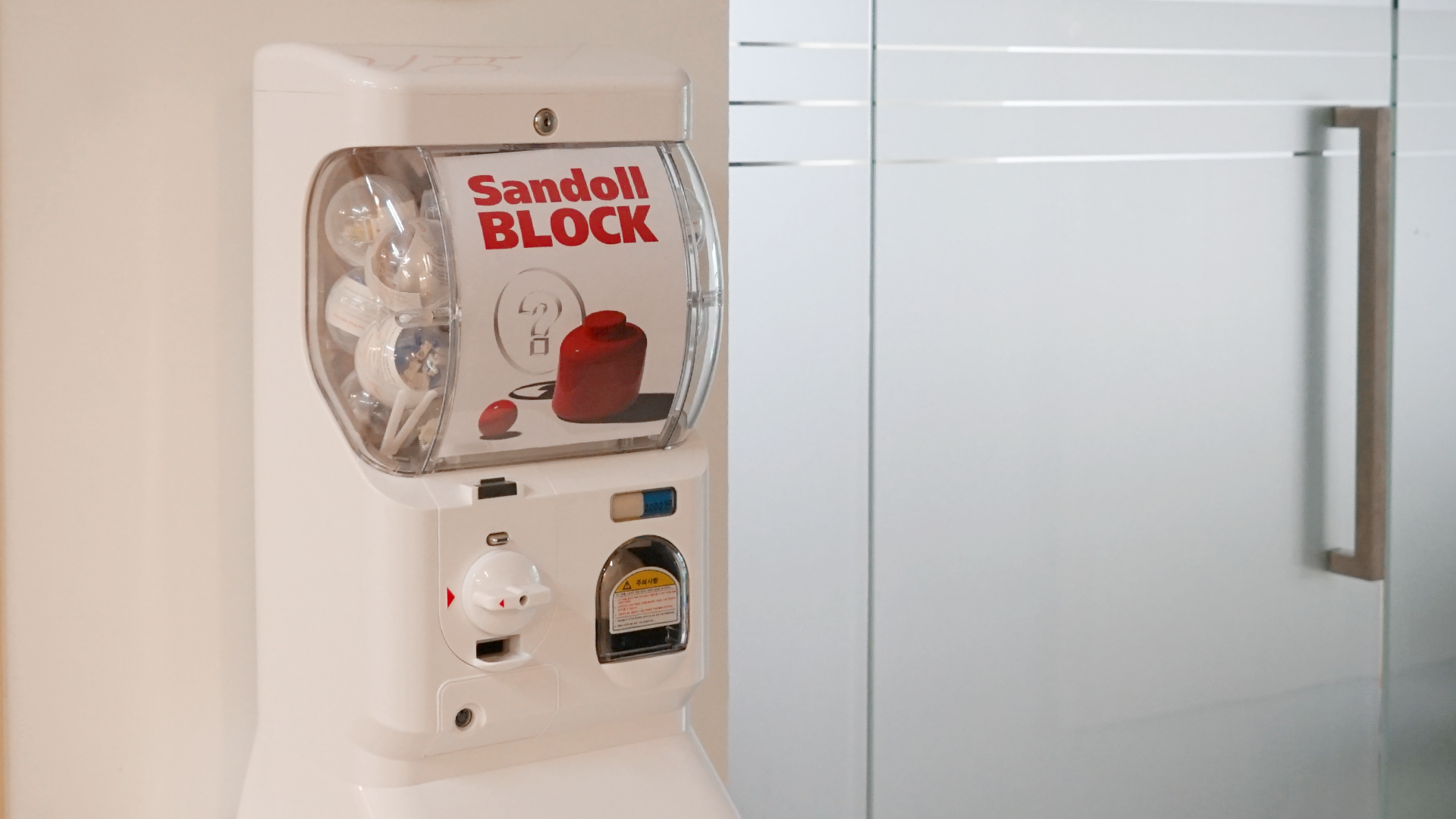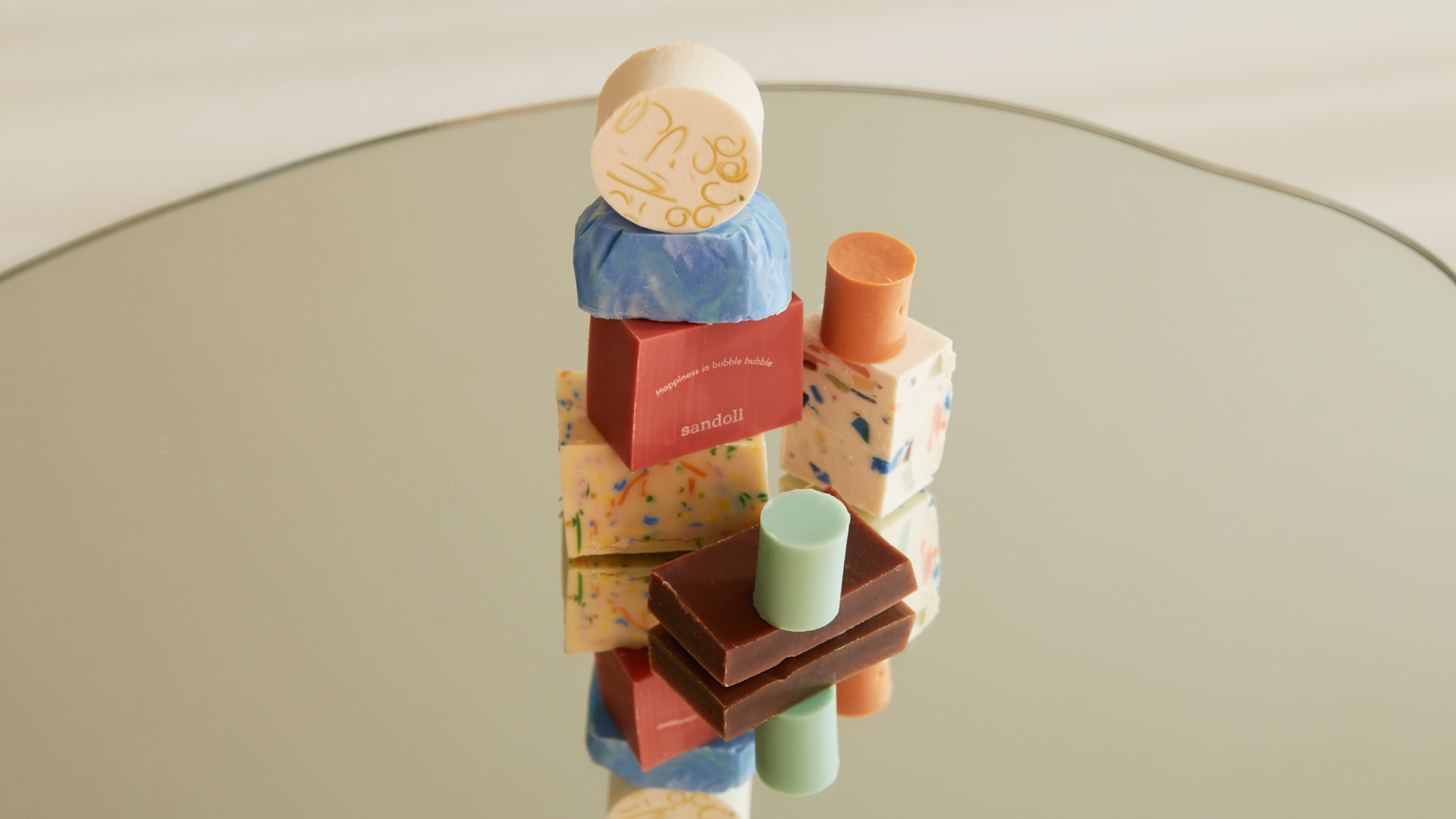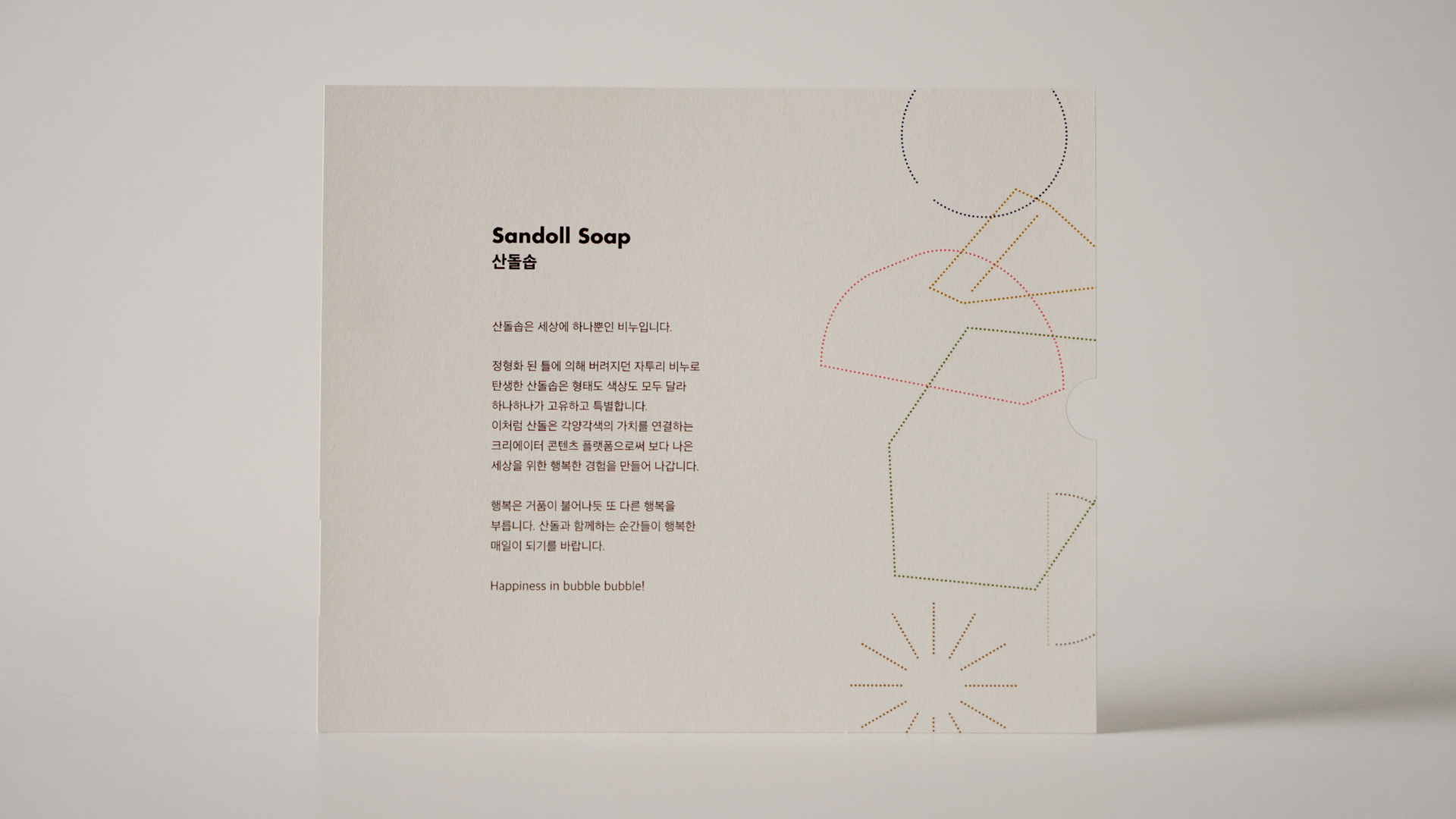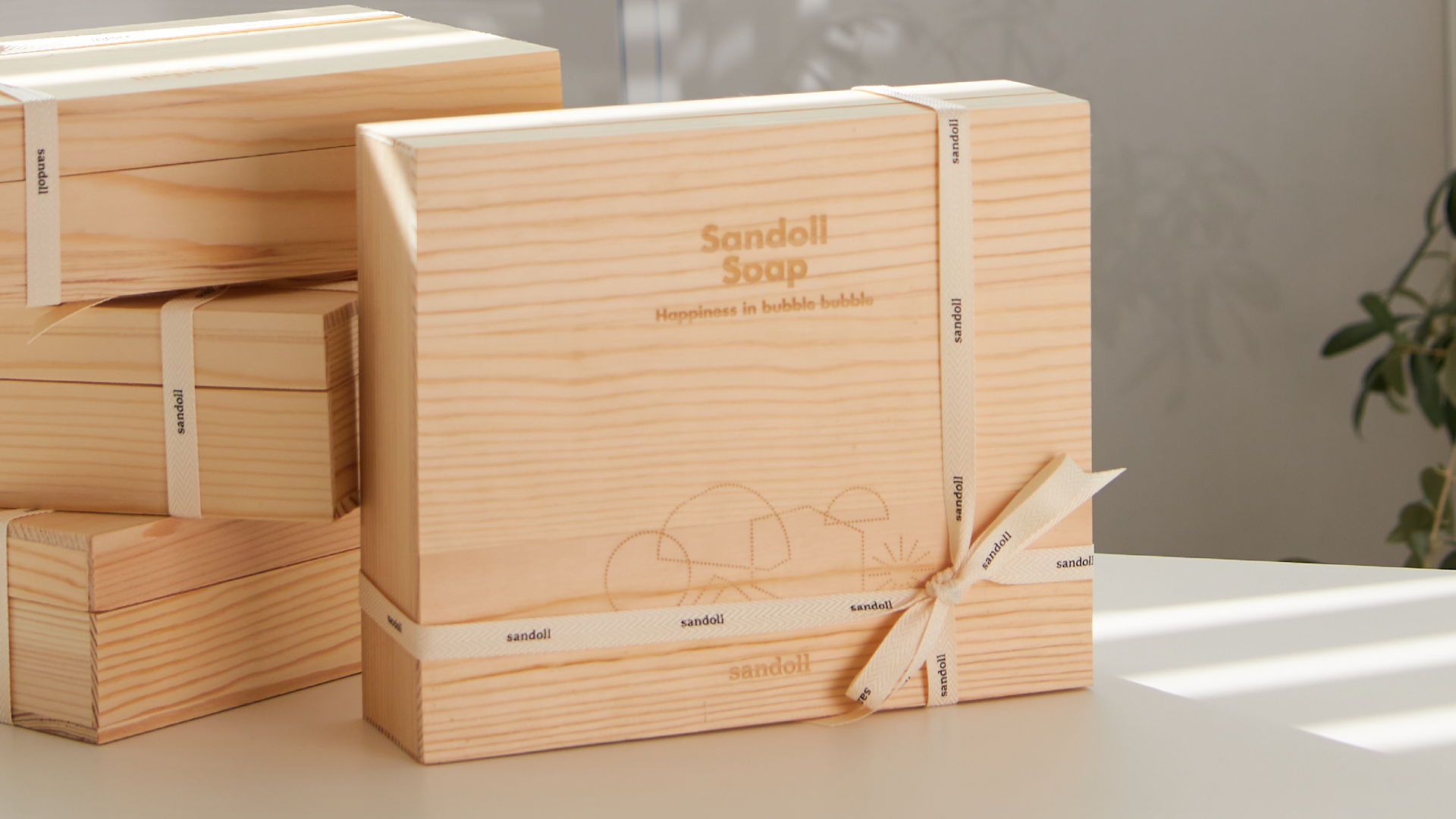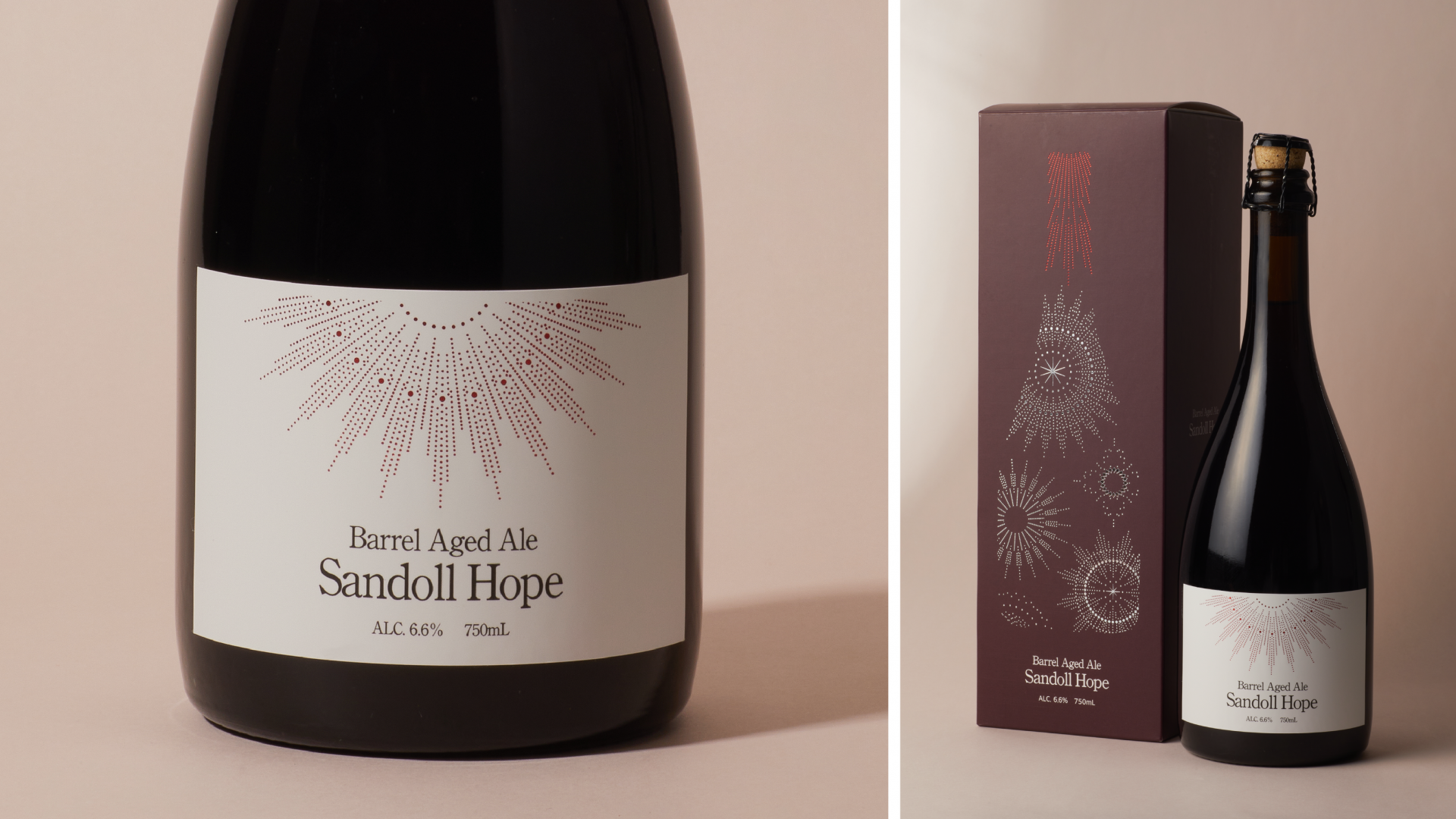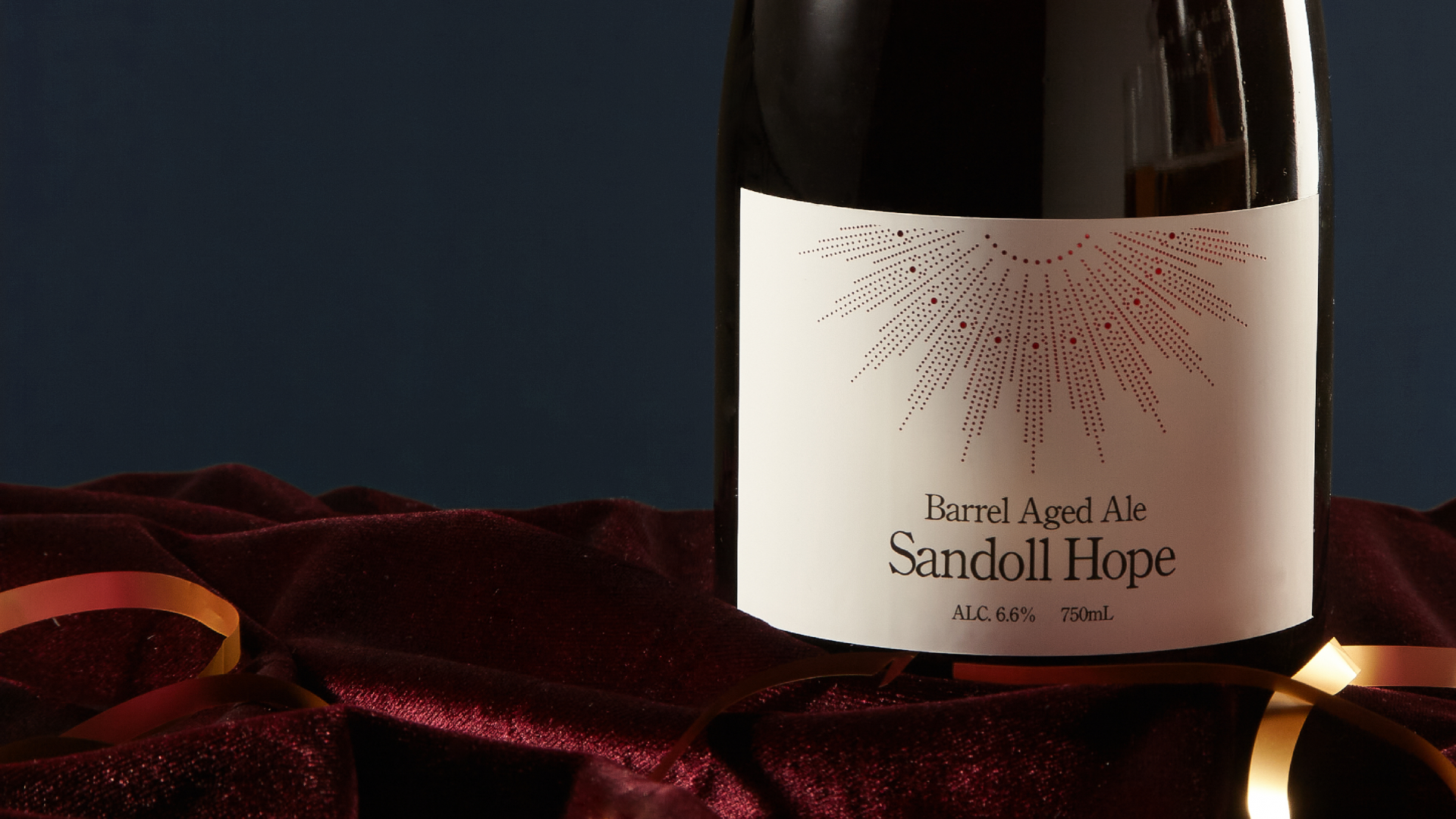
Sandoll produces a variety of brand merchandise every year. When people think of “Sandoll,” fonts are usually the first thing that come to mind. Perhaps because of this, many are curious about what Sandoll’s merchandise looks like. Today, we would like to carefully walk through the story of the brand merchandise that the BX Team has created over the years.
Q. Why does Sandoll create merchandise?
Yongho: Hello, I’m Yongho Lee, a BX planner. Sandoll creates merchandise to effectively communicate its brand identity and message. One of the strengths of merchandise is that it allows the identity embedded in a brand to be realized as physical objects. Within various points of contact with customers, the BX Team delivers a consistent brand experience while creating moments where that experience can continue to expand. Elements that represent a consistent experience include brand fonts, colors, and voice. These elements vary by brand, but we believe that few devices deliver an experience as dense and tangible as brand merchandise.
Yeoreum: Hello, I’m Yeoreum Kim, a designer on the same BX Team. In most cases, interactions between a brand and its customers are not situations where brand identity alone can take priority. More often, the product or service itself comes first. Brand merchandise, however, places a dense brand experience at the forefront in order to convey identity. That is why the BX Team cannot help but be deeply committed to merchandise.
Various ways to experience a brand
Yeoreum: As mentioned earlier, brand merchandise materializes brand identity. Experiencing a brand through tangible objects makes the impression clearer and more vivid. There is an old saying, “Hearing something a hundred times is not as good as seeing it once (百聞不如一見).” I think this saying aptly describes the appeal of brand merchandise.
In this context, much of the merchandise currently created by the BX Team is intended for BtoB purposes, as it allows Sandoll’s impression to be communicated clearly to business partners. Because the word “business” itself can feel rigid, brand merchandise serves as a device that helps conversations flow more smoothly, functioning as an icebreaker and enabling more natural dialogue.
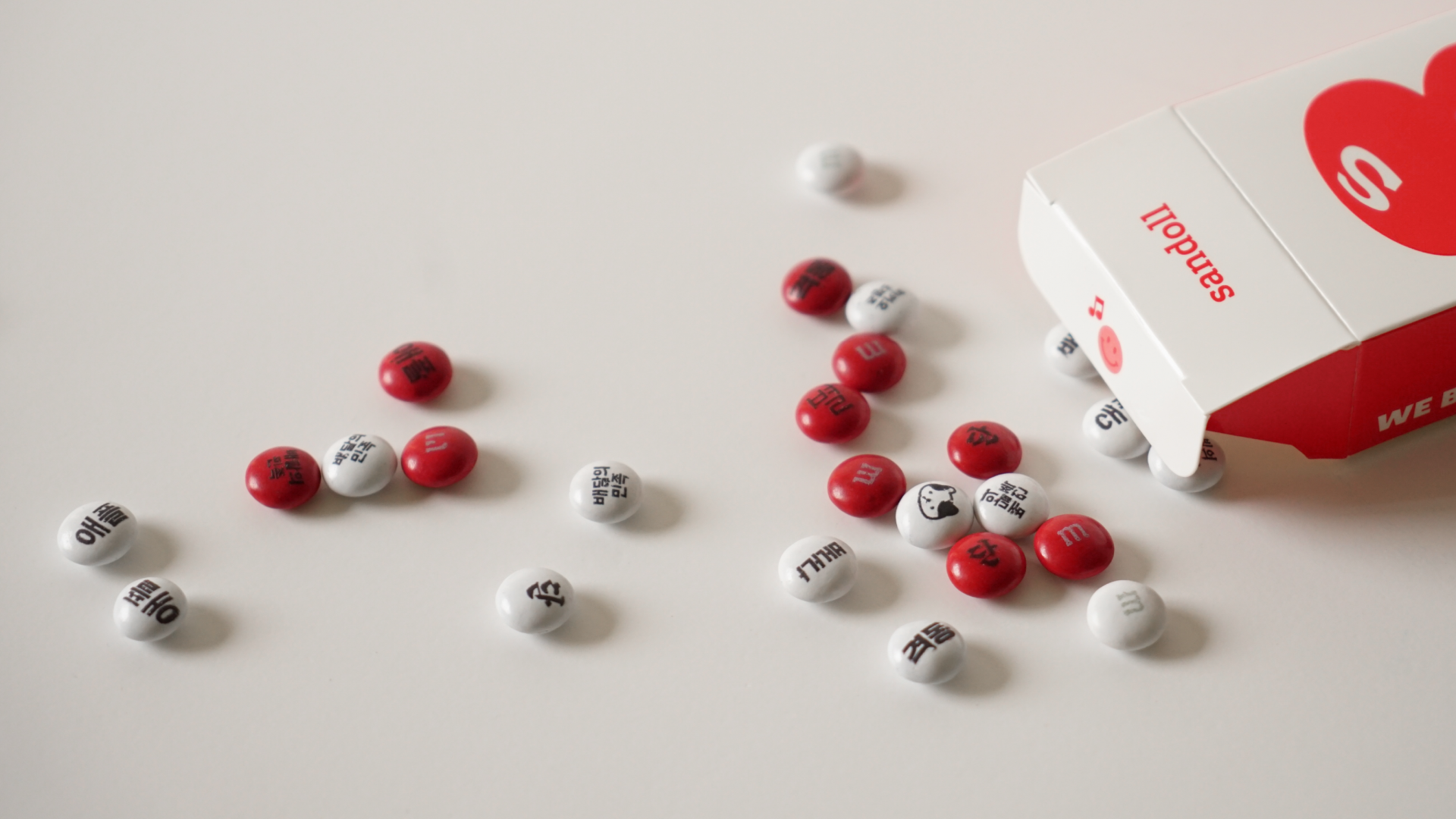
Sandoll SWEET is a piece of merchandise that presents Sandoll’s fonts in the form of chocolate. Created with the meaning of hospitality and affection,
it was designed to make an encounter with Sandoll a pleasant and sweet experience.
First impressions determine more than you might expect. With Sandoll’s sweetness captured in chocolate, try sharing it lightly with your partners.
It can help convey a positive first impression of Sandoll. Inside the chocolate, you will find fonts created by Sandoll hidden within.
Yongho: The identity and messages embedded in merchandise naturally lead people to recognize the direction of Sandoll as a company. I believe that as these devices accumulate, they eventually help people remember Sandoll in a way that differentiates it from other brands. They may also become the backdrop that brings Sandoll to mind at decisive moments.
The word gyeolsim (決心) means to firmly set one’s mind. People in the past viewed the mind as something that easily drifts, which is why they expressed making a decision as “hardening the mind.” I believe this is where the role of the BX Team lies: persuading people and helping them form a firm commitment (決心) toward our brand.
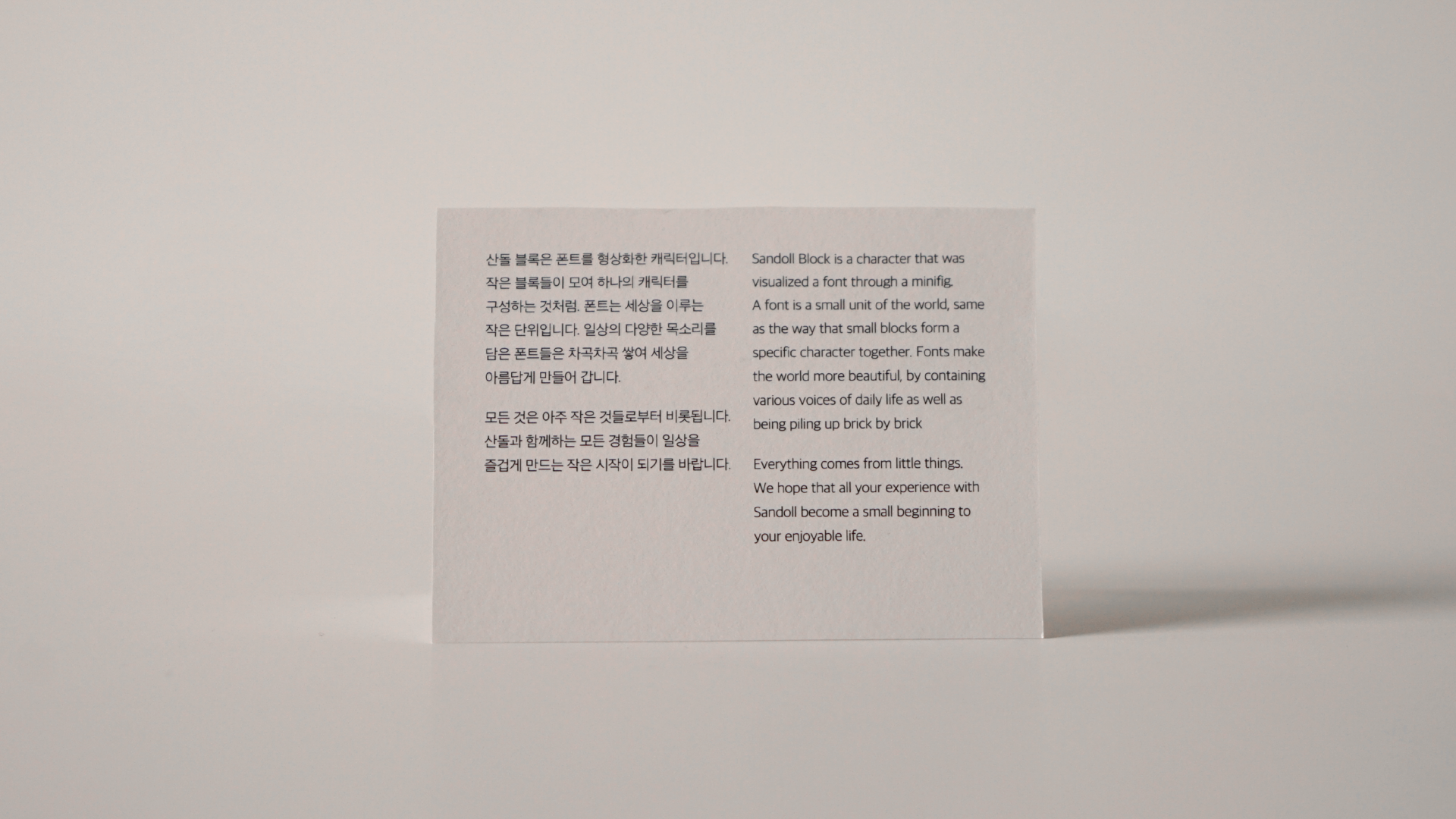
Sandoll BLOCK is a character that gives form to fonts. Just as small blocks come together to form a single character, fonts are small units that make up the world. Fonts that carry the many voices of everyday life accumulate one by one, gradually making the world more beautiful. Everything begins with very small things. We hope that every experience with Sandoll becomes a small beginning that brings joy to everyday life. Photo by — Kim Yeoreum
Yeoreum: I think it can be difficult for non-designers to grasp the specific impression of a font at first glance. In this context, Sandoll BLOCK is merchandise that makes the character of a font more clearly tangible. Through Sandoll BLOCK, I hoped people would better understand Sandoll’s services and experience them in a more approachable way.
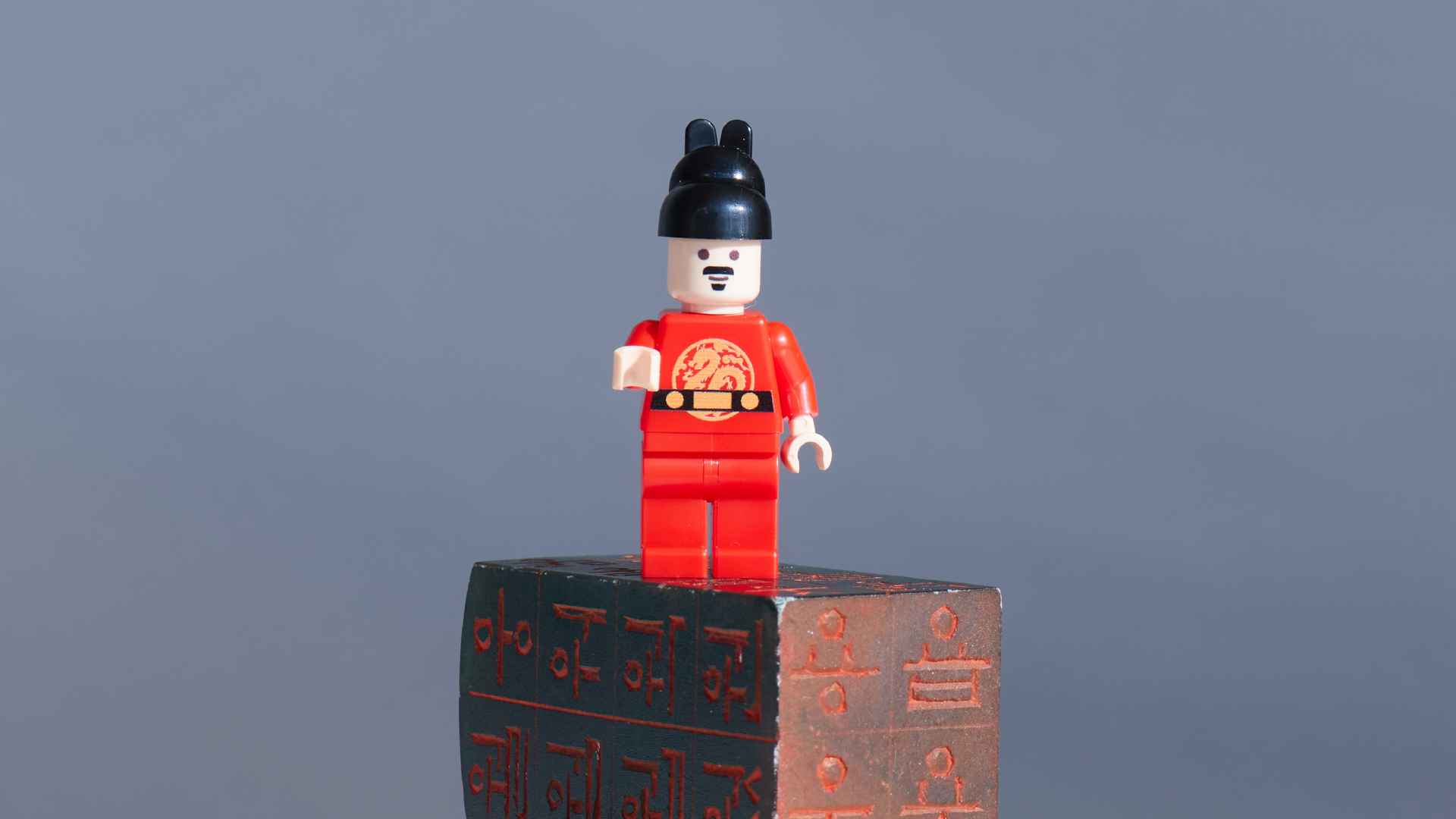
「Sandoll Gwanghwamun」 is a practical font that preserves the identity of old metal type while reinterpreting it in a contemporary way.
Its practical value, together with the name “Gwanghwamun,” evokes King Sejong, who created Hangul.
「Sandoll Gothic Neo1」 is one of Sandoll’s representative fonts, featuring a wide range of weights and an extensive family.
Like an endlessly expanding universe, it offers a broad spectrum of choices—much like an astronaut drifting through infinite space.
Yeoreum: I believe that fonts are the smallest unit in design. That is why the BX Team often refers to fonts as “atomic elements.” The message used to explain Sandoll BLOCK—“Just as small blocks come together to form a single character, fonts are small units that make up the world”—reflects this perspective of the BX Team. Just as a figure cannot be completed without a single piece, such as the right hand, we believe that creative work cannot be complete without fonts. To embody this concept, the packaging was designed as a single block piece.
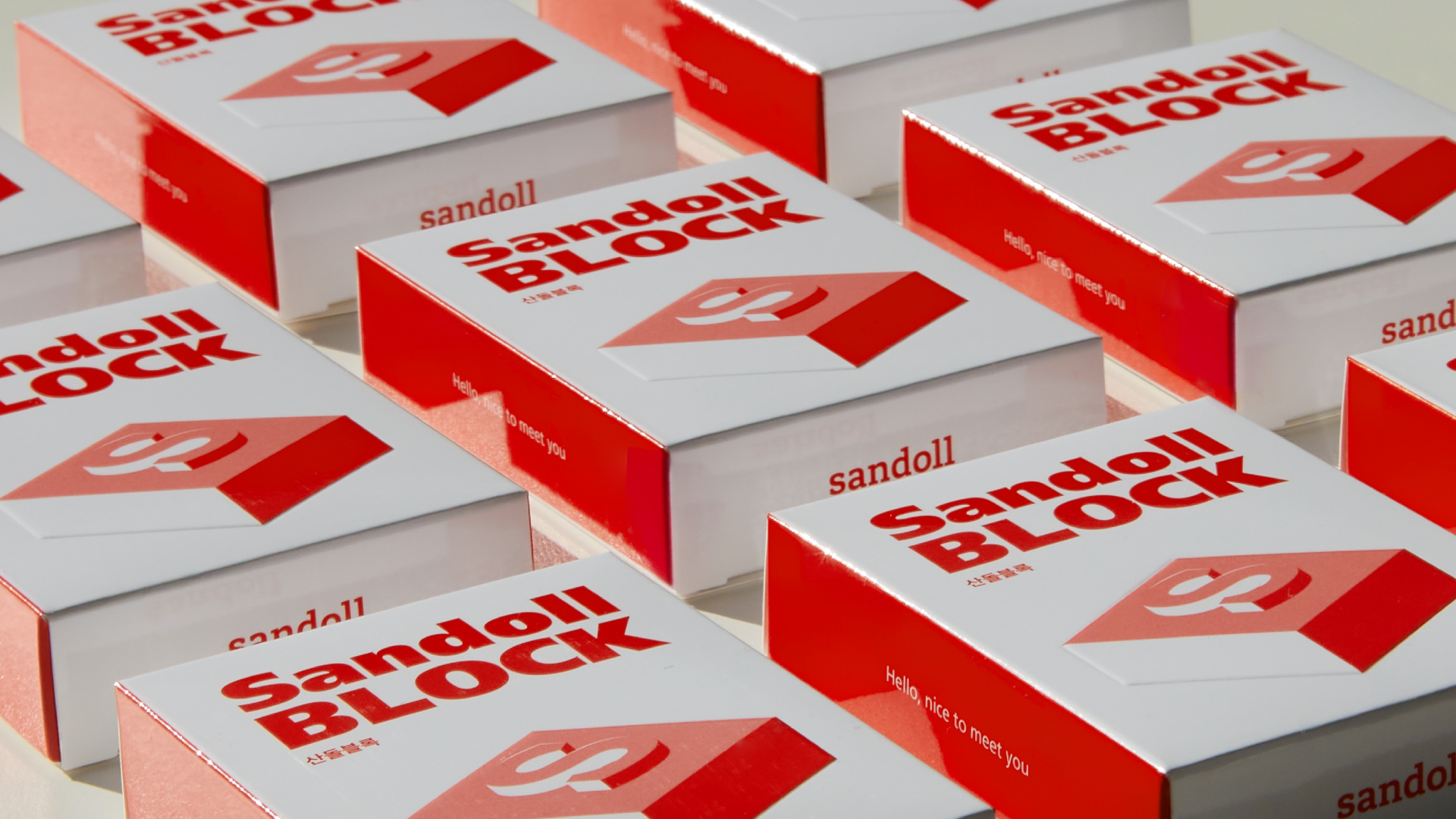
Brand merchandise that matters even more because it is Sandoll
Yongho: Sandoll provides a range of services based on fonts. In modern society, fonts exist as fundamental elements, much like air. Even in ordinary daily life, we encounter hundreds of fonts, yet they often go unnoticed—just like air itself. For this reason, Sandoll places importance on translating fonts into tangible products that can be experienced physically. Doing so allows the attributes and stories of fonts, as well as the direction Sandoll pursues, to be communicated more clearly.